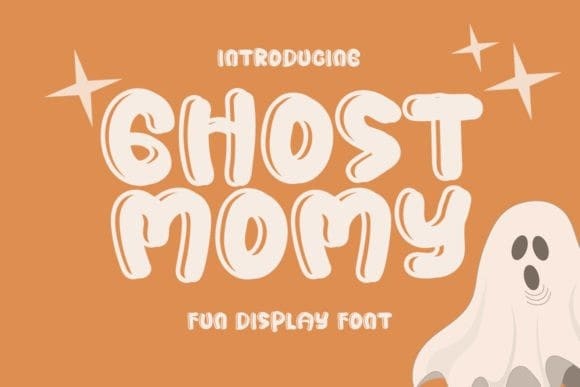
Ghost Momy Font
Ghost Momy Font is incredibly functional and versatile. With its multiple weights and styles, you can easily create a variety of design elements, from headlines and body text to logos and branding materials.
Ghost Momy